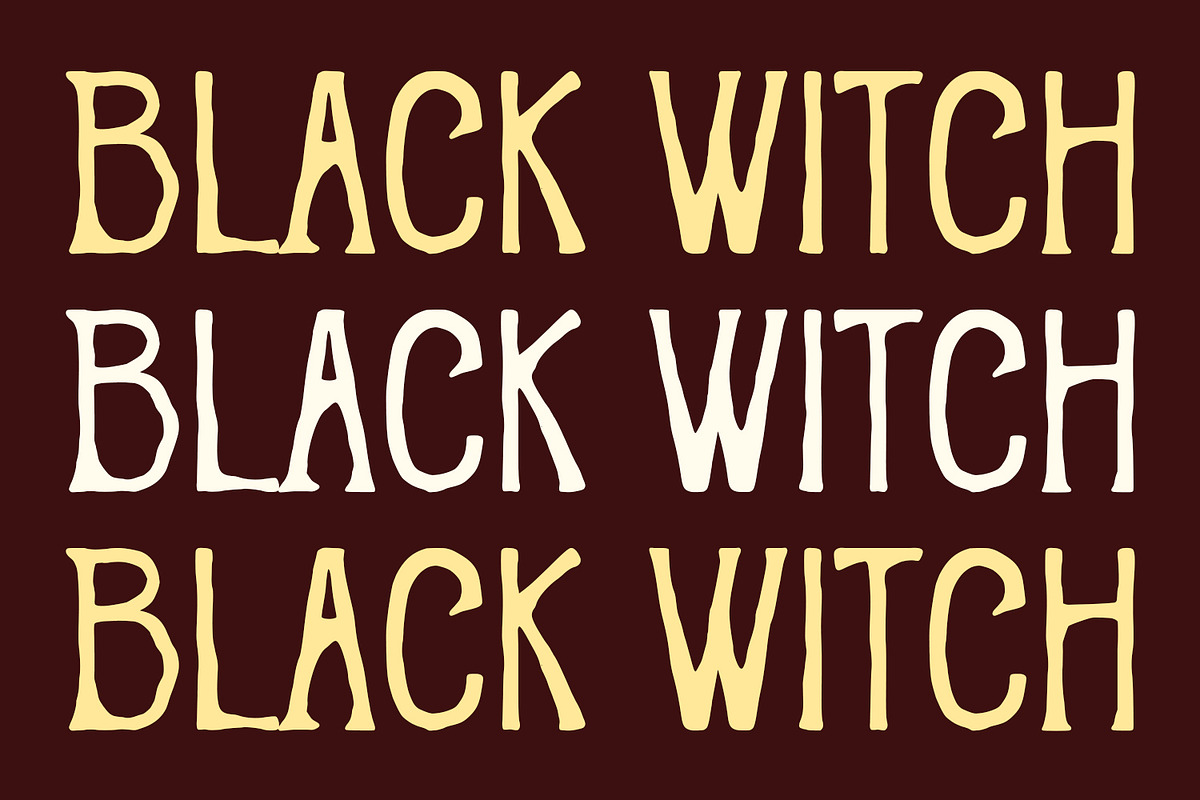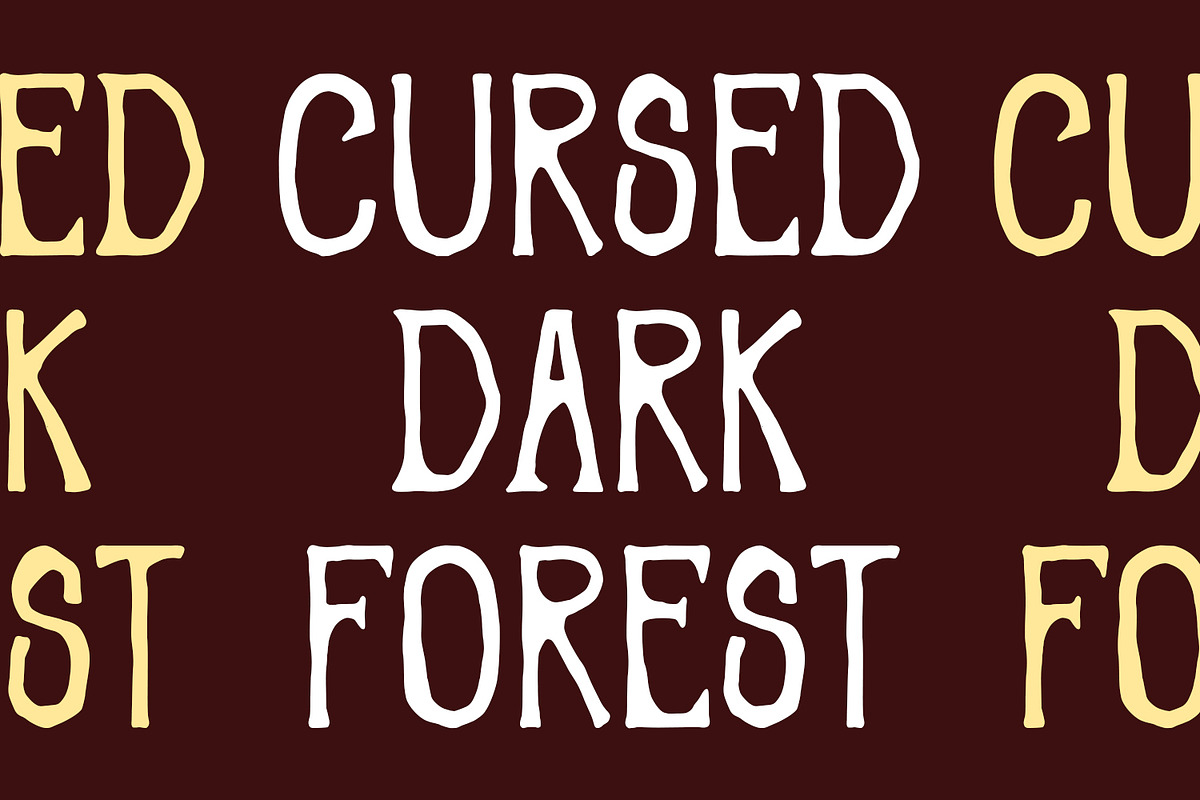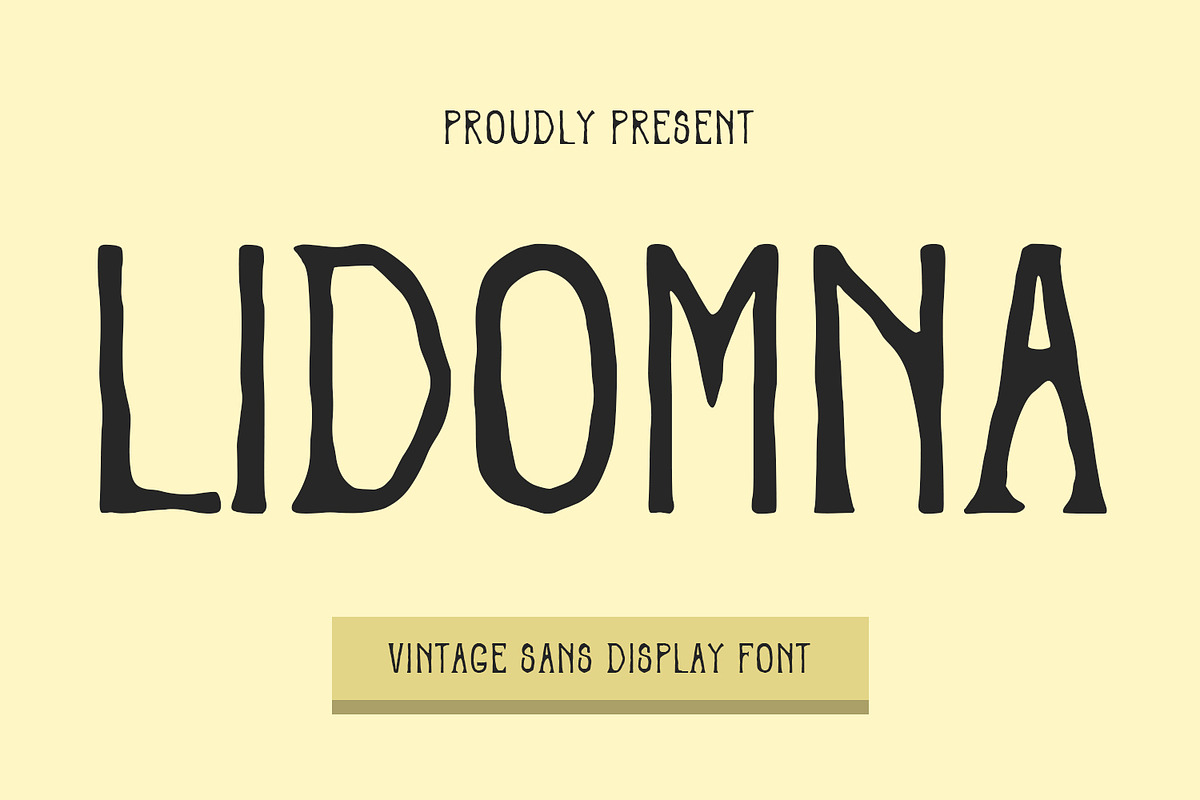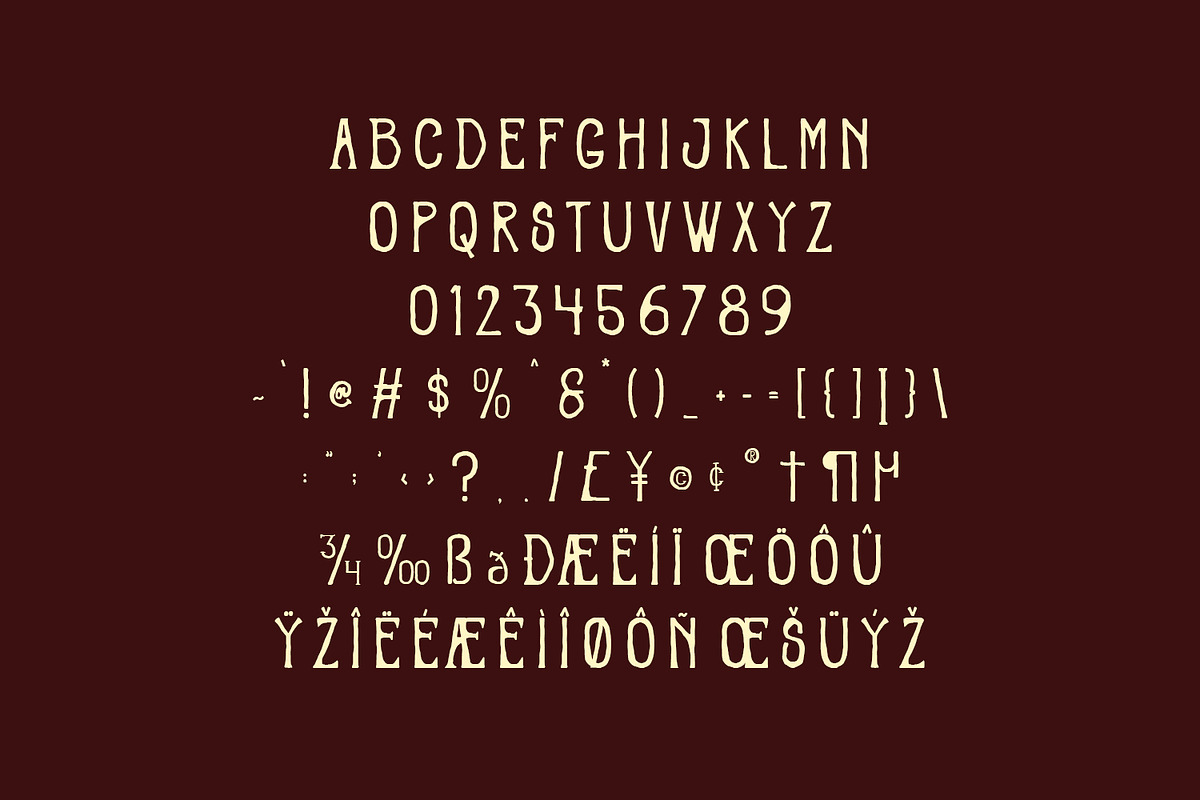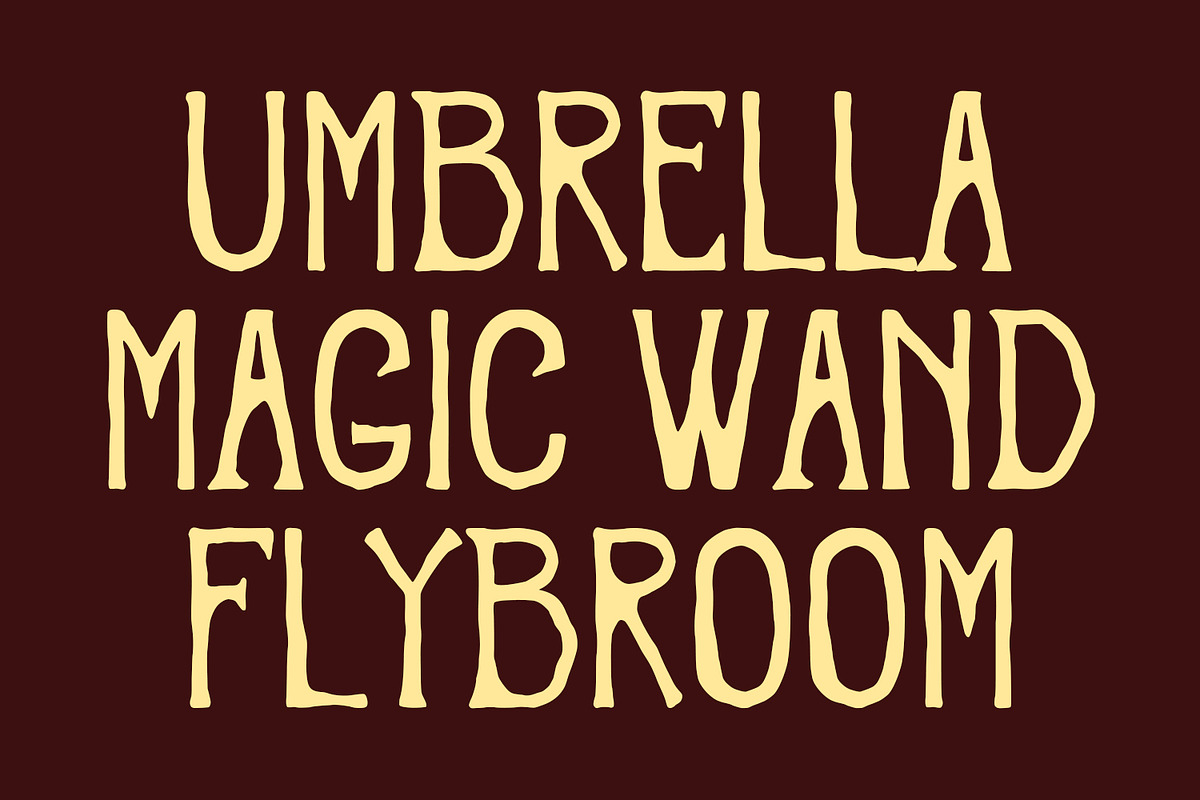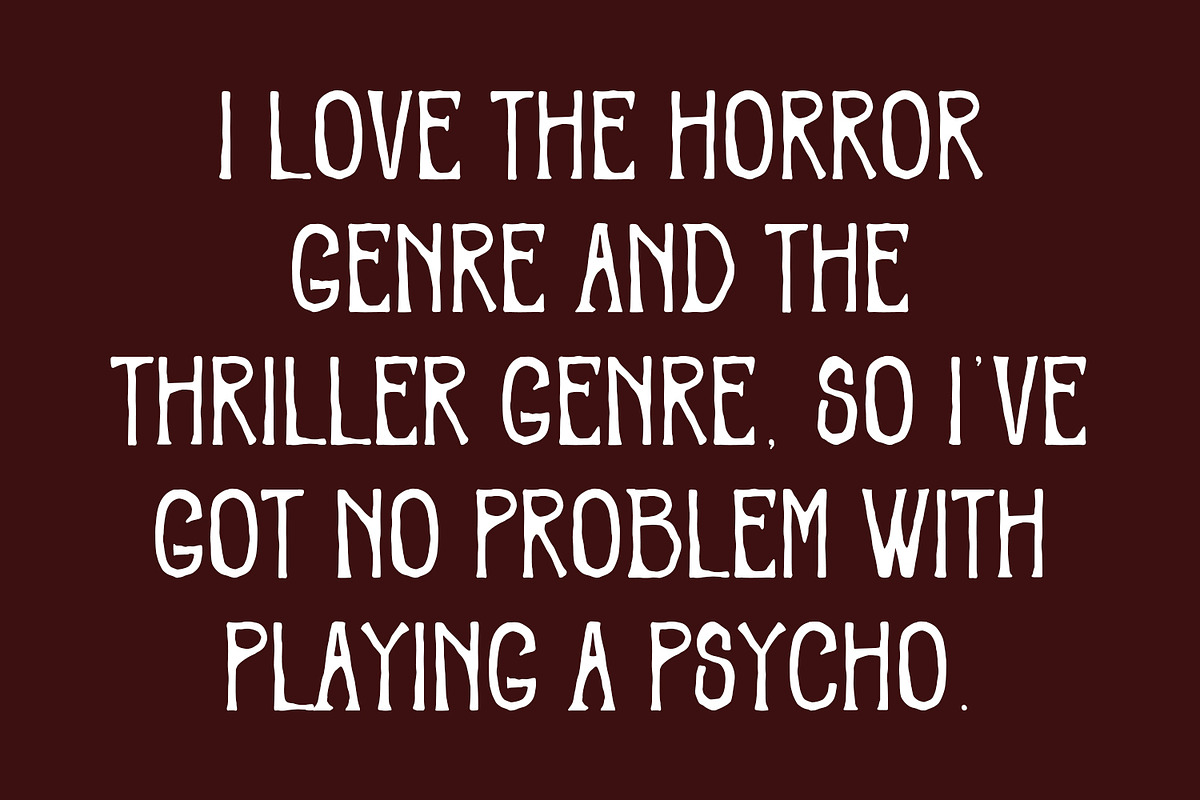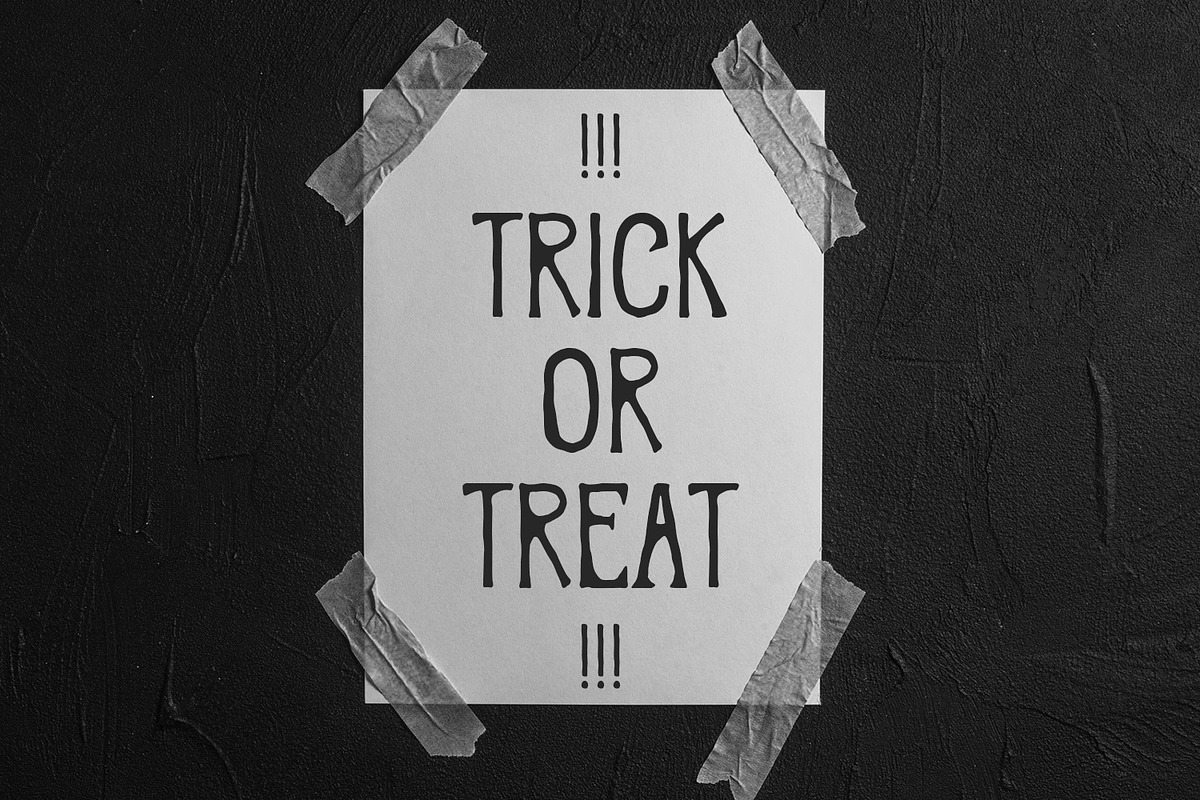
Lidomna Vintage Sans Display Font
Lidomna is a vintage retro sans display font. With medium tall and grunge stroke, fun character to give you an extra creative work. Lidomna font support multilingual more than 100+ language. This font is good for logo design, Social media, Movie Titles, Books Titles, a short text even a long text letter and good for your secondary text font with sans or serif. Make a stunning work with Lidomna font.